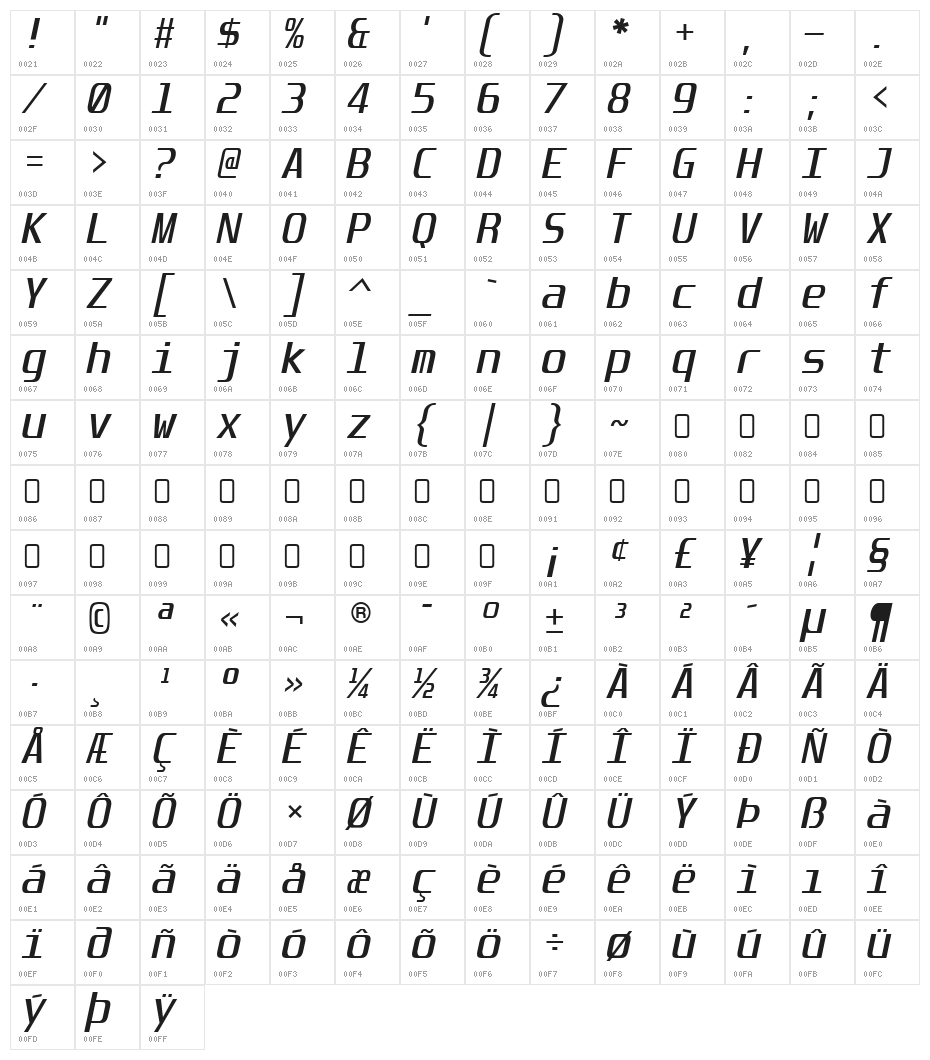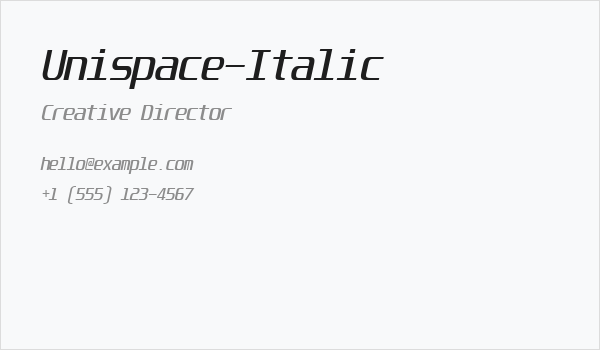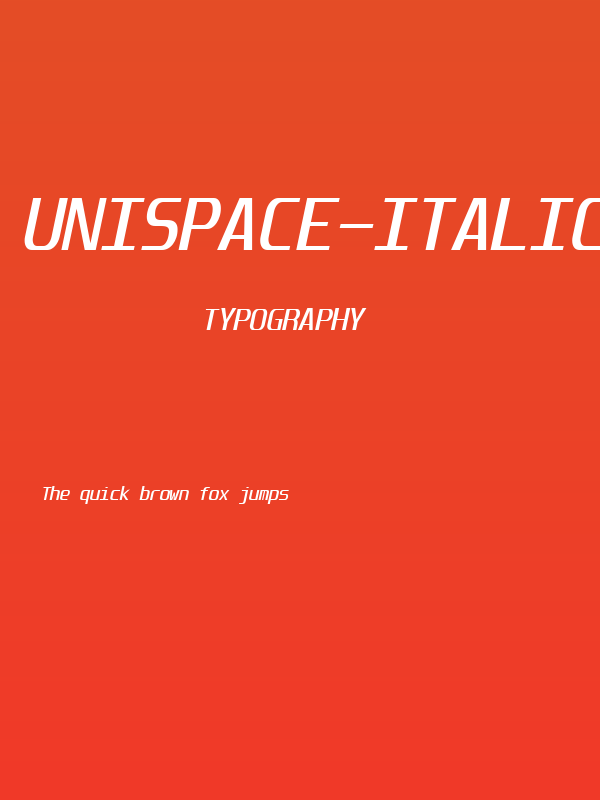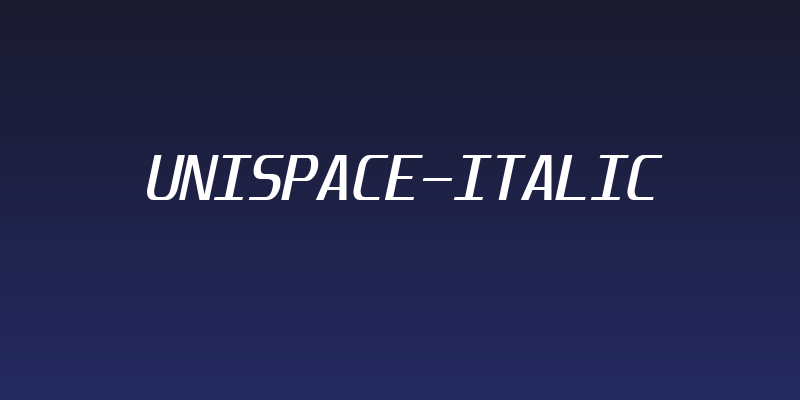
Unispace-Italic Font
Unispace-Italic Description
This font features a sleek, modern design with a distinct italic slant, giving it a dynamic and forward-moving appearance. The characters are uniformly spaced, maintaining a clean and organized look. The uppercase and lowercase letters are consistent in style, with sharp angles and a slightly condensed form. The numerals are clear and easy to read, matching the overall aesthetic of the alphabet. Special characters are well-integrated, ensuring versatility in various design contexts. The font's geometric structure and smooth curves make it suitable for contemporary projects.
| Use Case | Headlines, Logos, Digital interfaces |
| Proposed Projects | Ideal for tech branding, modern advertising, digital interfaces, and futuristic designs. |